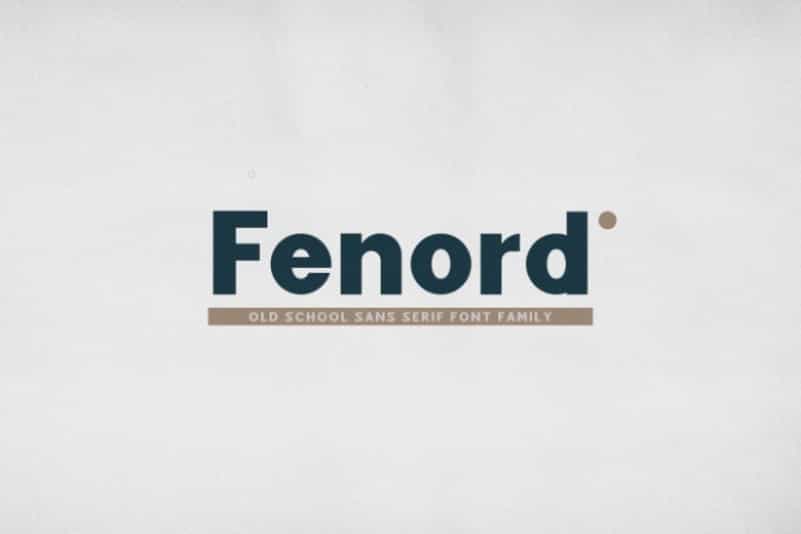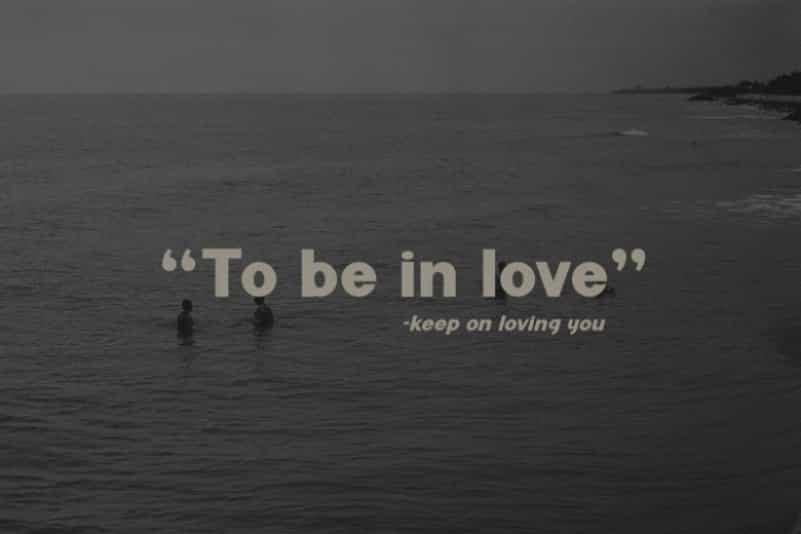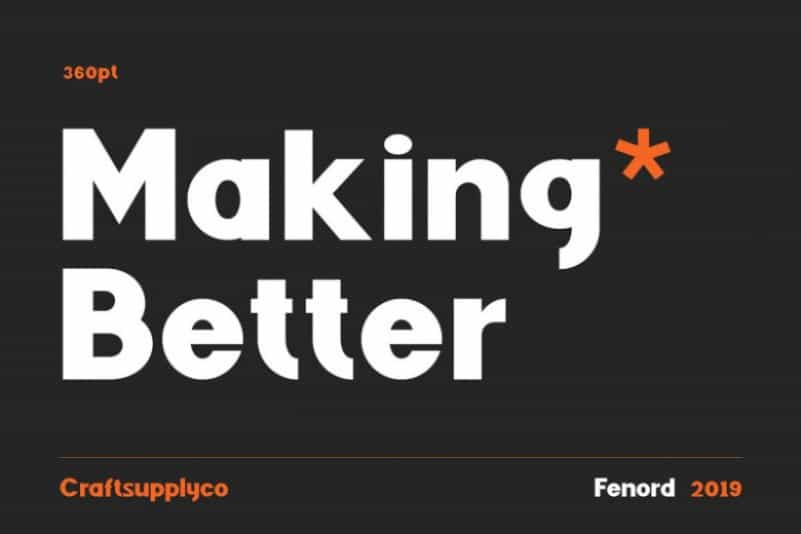
The new old school sans serif font family “Fenord Font” is introduced by Craft Supply Co. , which is a duo of the new and the old. Fenord Sans Serif Font was modeled on the European type specimen books, in particular Fenord type standard. Fenord is the perfect tool for professional use because it combines the solid values of the pioneers and at the same time keeps an eye on todays demands and technology.